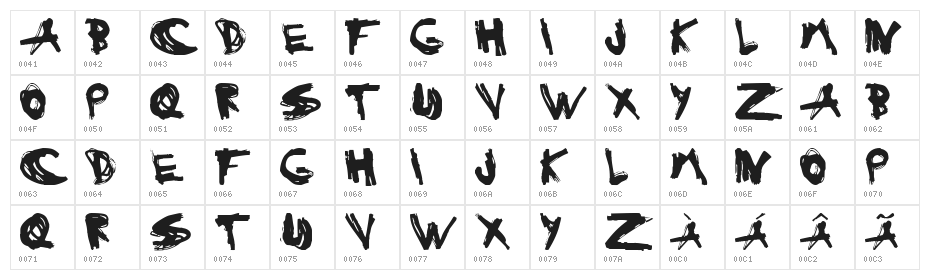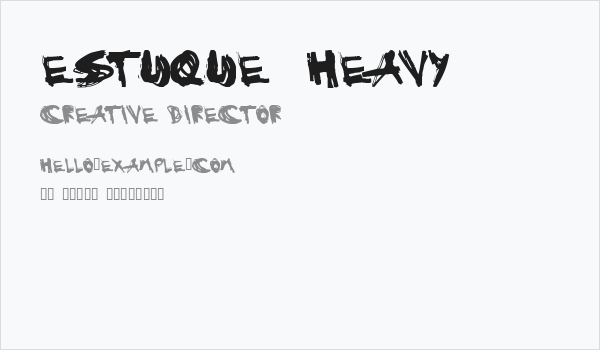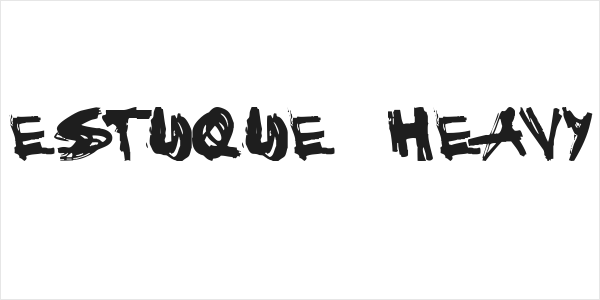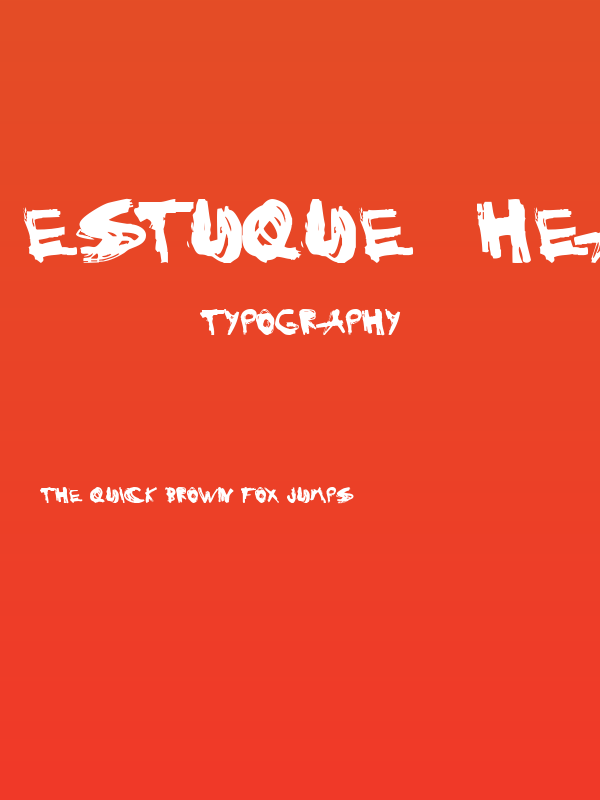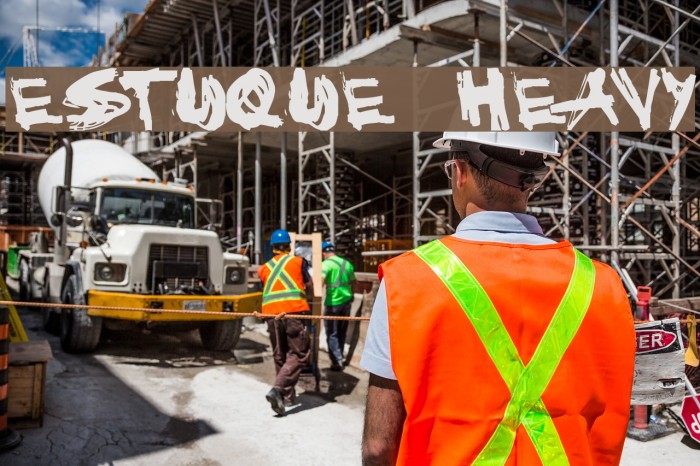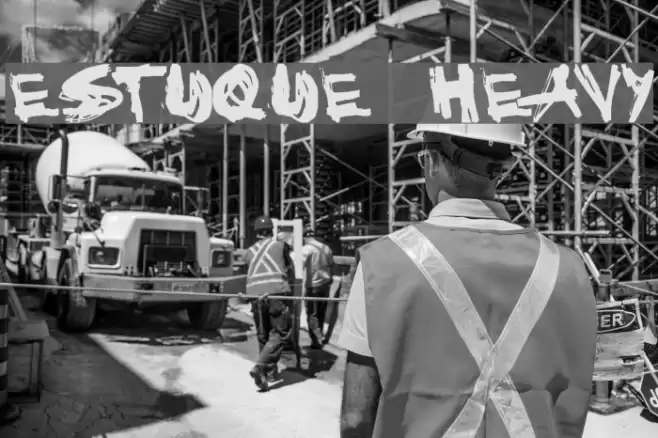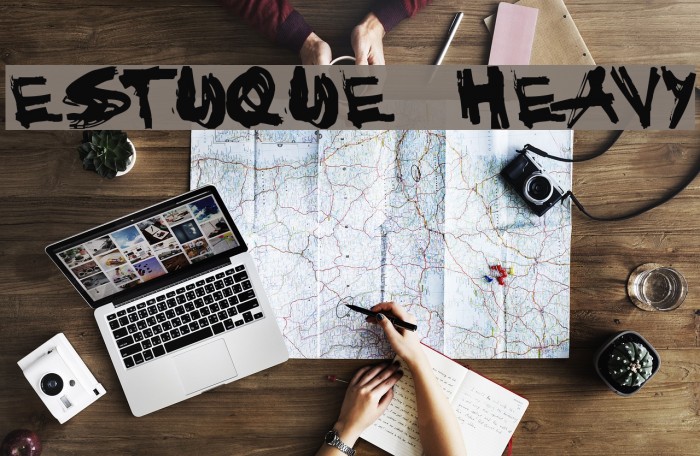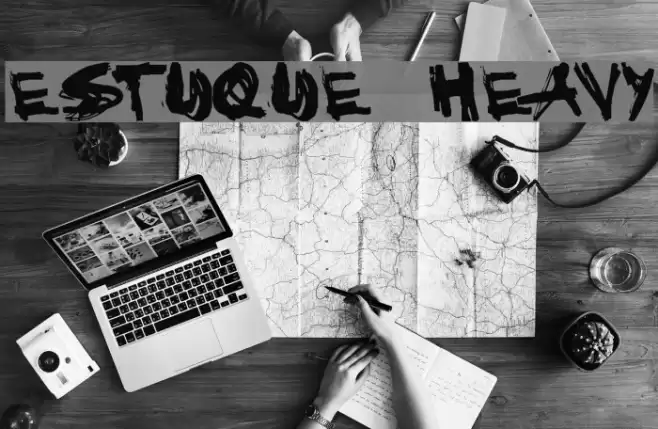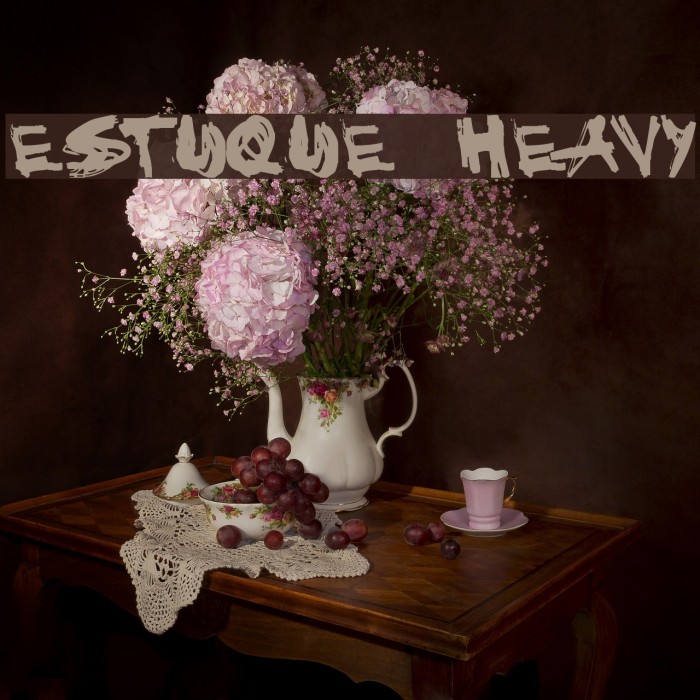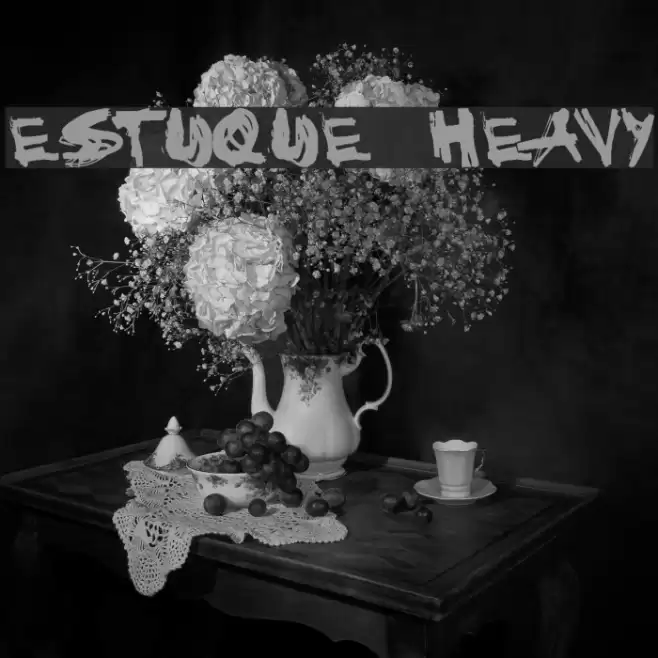
Estuque Heavy Font
Estuque Heavy Description
This font exhibits a bold and expressive style, characterized by its brushstroke-like appearance. The letters are crafted with a dynamic and energetic flair, giving each character a sense of movement and spontaneity. The strokes are uneven and textured, creating a rugged and artistic feel. This font is highly decorative, making it ideal for projects that require a strong visual impact. The uppercase and lowercase letters maintain a consistent style, with the uppercase being slightly more pronounced. The numbers and special characters follow the same artistic theme, ensuring a cohesive look across all text elements.
| Proposed Projects | Ideal for posters, album covers, graffiti art, and any design needing a bold, artistic touch. |